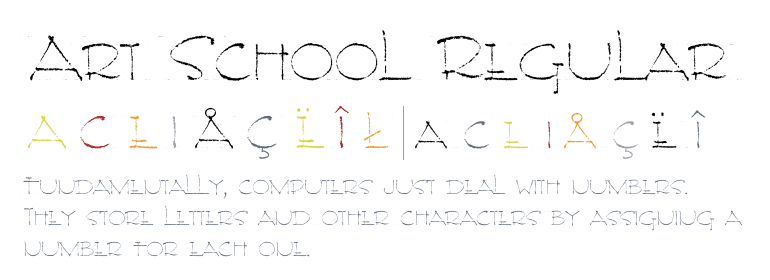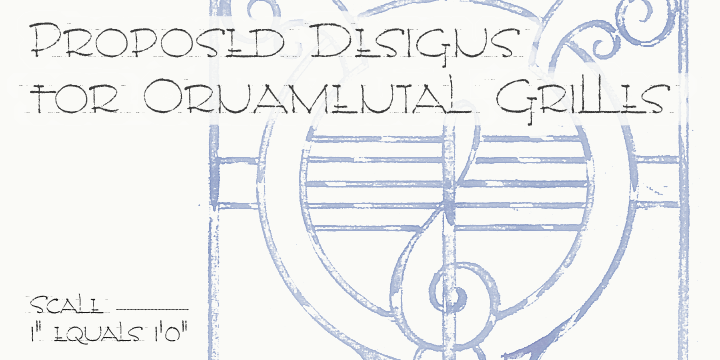
Art School Font by Aviation Partners
About: Faithfully reproduced from my father’s design drawings made at The Municipal School of Arts and Crafts, Wolverhampton in 1939. Strong nostalgic influences of Art Nouveau and Art Deco. What caught my eye was the consistency with which each particular character was formed: every ‘R’ like every other, every ‘S’ the same. Tight letter spacing and loose word spacing characterised his titling but he didn’t trust himself to print without first ruling guidelines, a hint of which remain in this font.